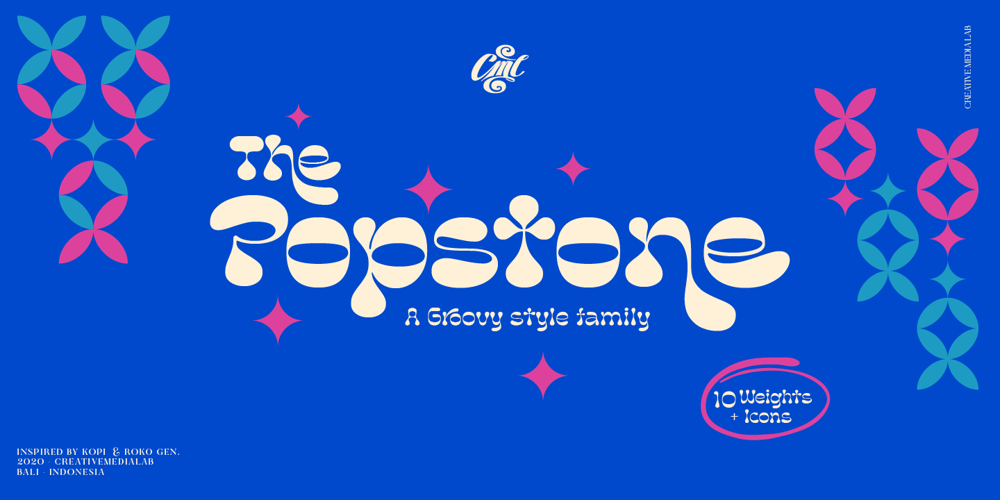
Popstone Font Family was designed by Kadek Mahardika and published by Creativemedialab. Popstone contains 12 styles and family package options. Groovy style font becomes one of the most popular fonts these days, many designers use it to create a fun and happy themes design projects. Popstone is one of a unique groovy font from our collection, it contains 10 weights from thin to black including variable format.It also has alternatives and a lot of fun ligatures to play with.Popstone is a fun, funky, and versatile font family, you can use it for poster, logo, retro or vintage theme, DIY projects, baby, kids, 70s, 80s style, and much more.